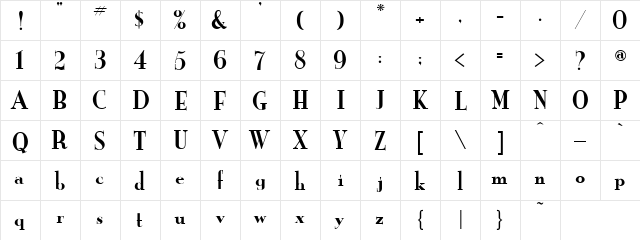
New Yorker Regular
Design Context for New Yorker Typeface
New Yorker takes a measured approach to typography — its balanced proportions and neutral character make it a reliable workhorse for both digital and print work.